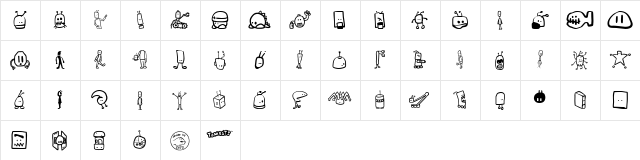
Tombots Regular
| Foundry | [ Divide By Zero ] |
| Designer | Tom Murphy 7 |
Design Context for Tombots Typeface
Tombots is a composed and adaptable typeface that performs quietly and consistently across a wide range of design contexts.